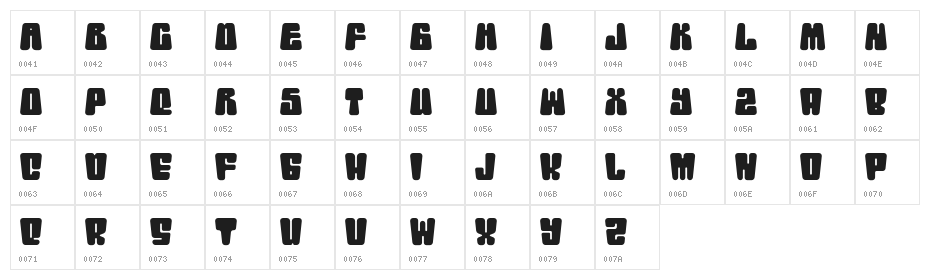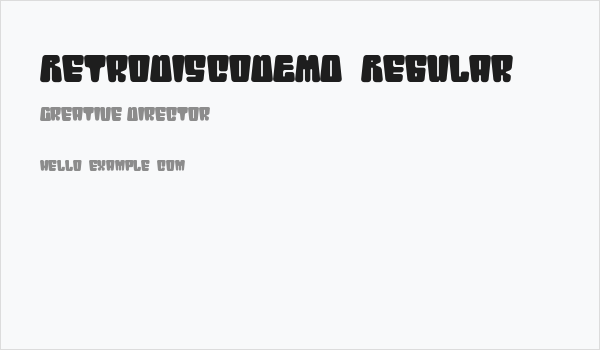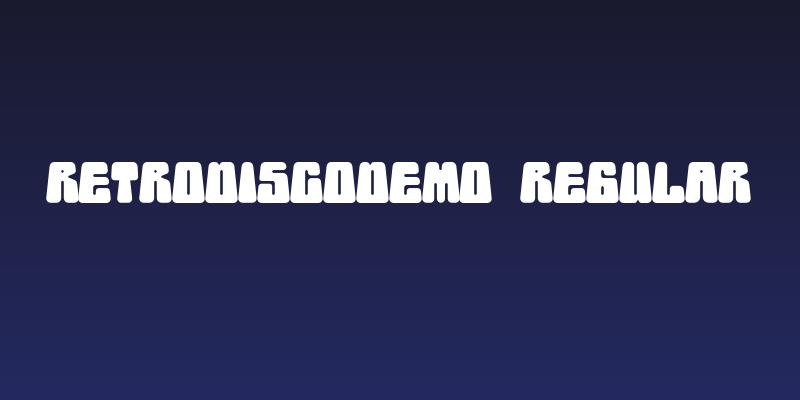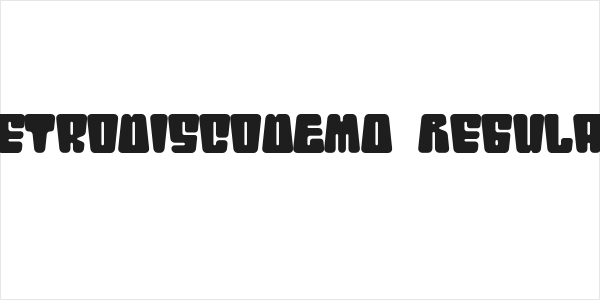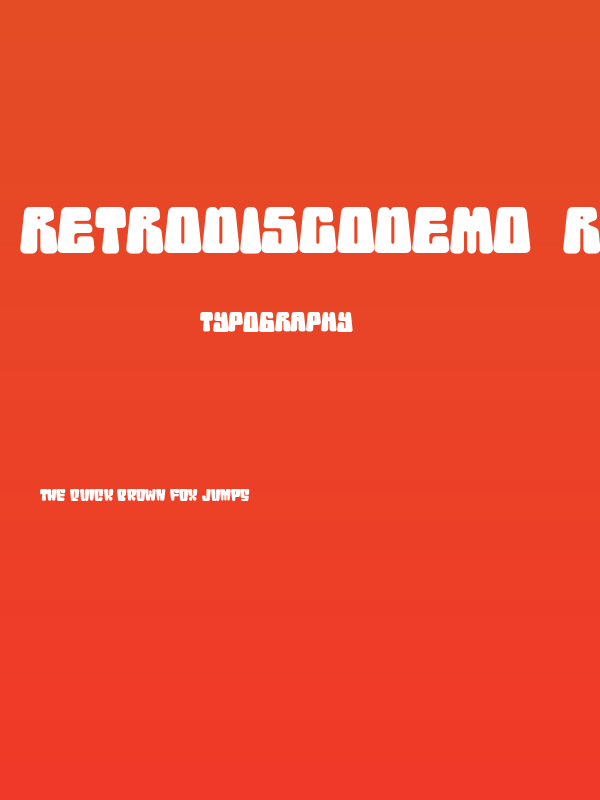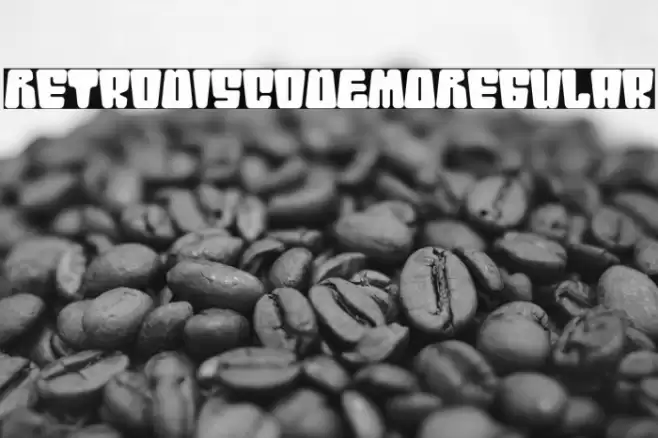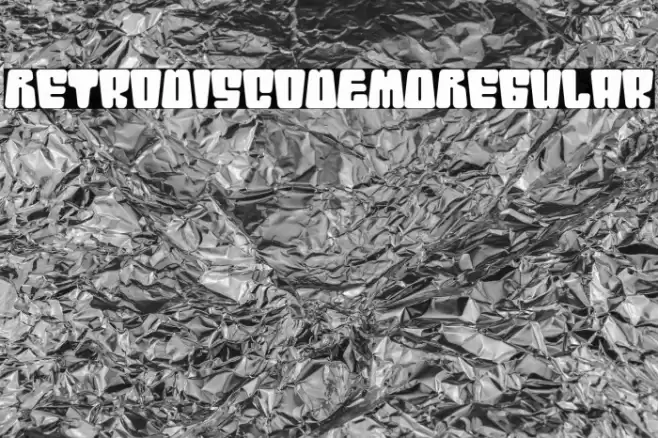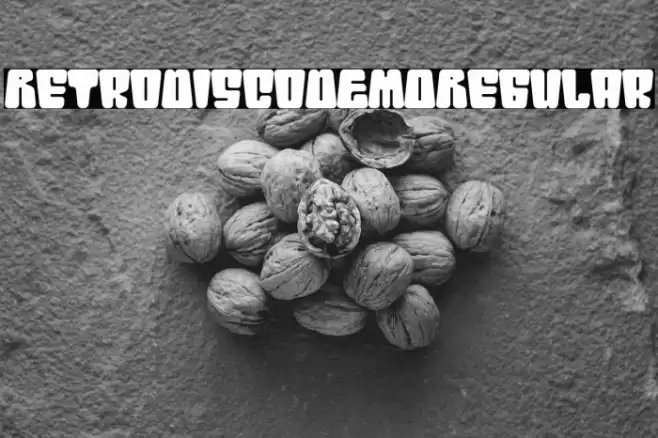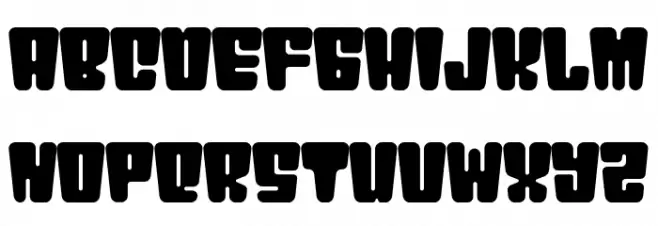
RetroDiscoDEMO-Regular Font
| Projets proposés | Ideal for retro-themed posters, album covers, event flyers, and branding projects that require a nostalgic touch. |